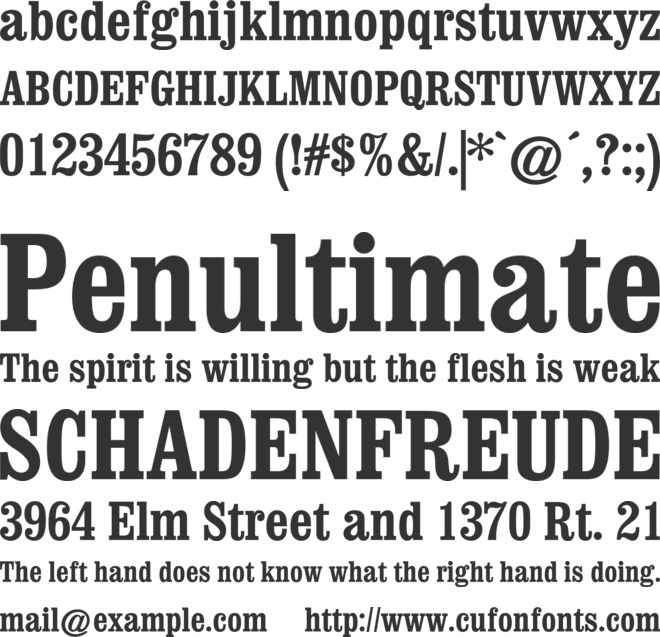
Clarendon MT Std Font Family
Monotype Design Studio
The first Clarendon was introduced in 1845 by R. Besley & Co, The Fan Street Foundry, as a general purpose bold for use in conjunction with other faces in works such as dictionaries. In some respects, Clarendon can be regarded as a refined version of the Egyptian style and as such can be used for text settings, although headline and display work is more usual.